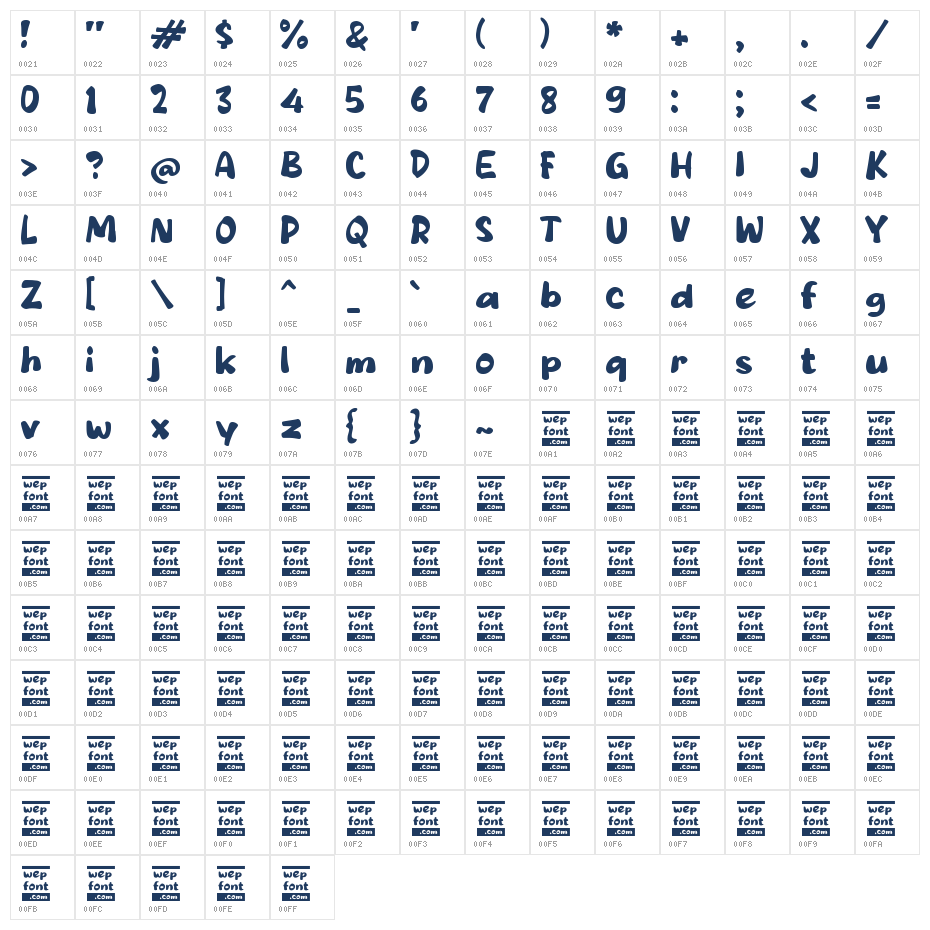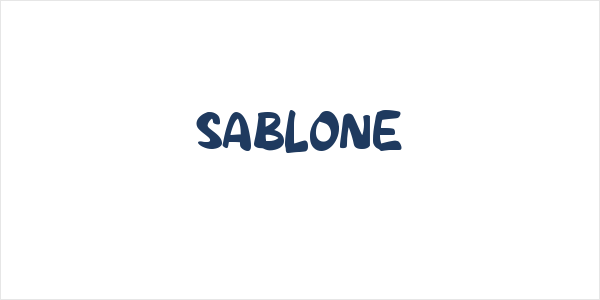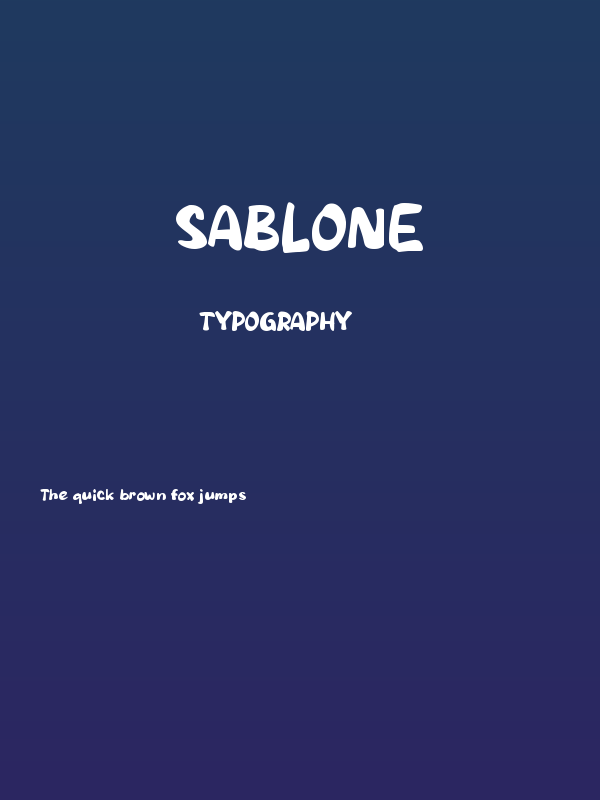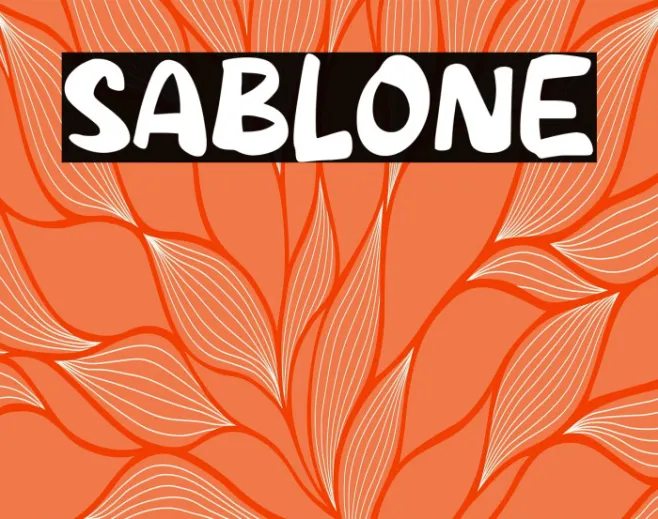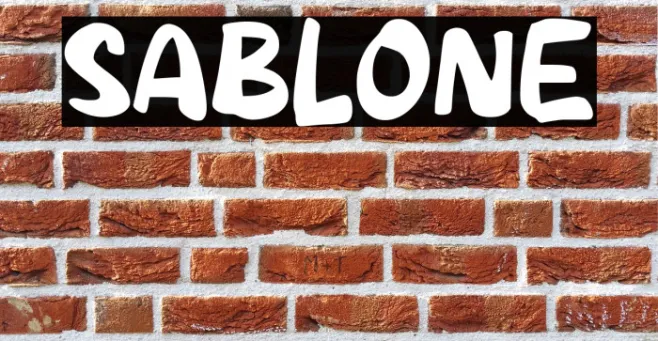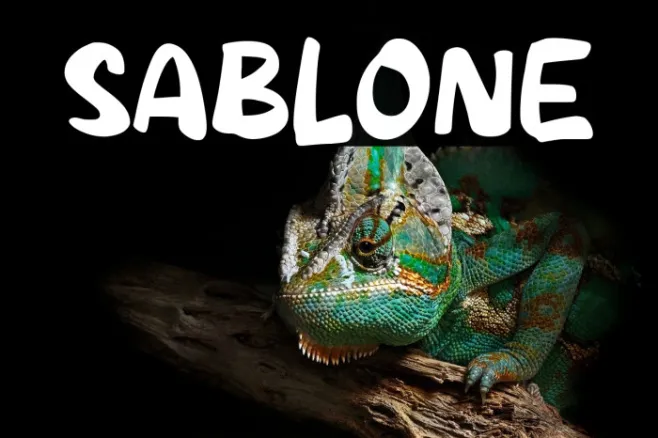
SABLONE Font
SABLONE Description
A bold, playful, handwritten style font with rounded edges and a casual appearance.
| Overall Style | Casual, Playful, Handwritten |
| Use Case | Headlines, Logos, Children's materials, Invitations |